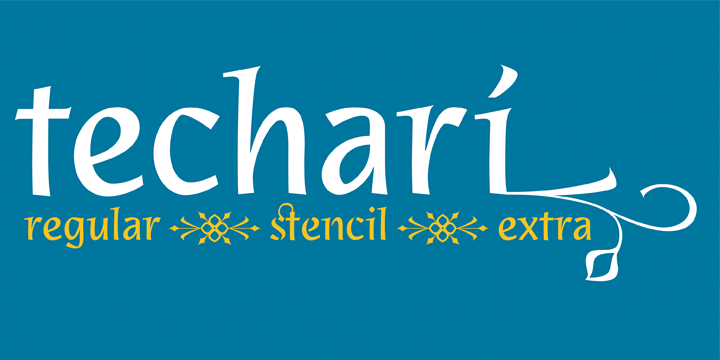
Techarí comes from a commission in which the brief consisted of the creation of a typeface family to be used for the design of the third disc of the band called Ojos de Brujo based in Barcelona. This disc was called Techarí, which means “free” in Caló, the language of the Spanish gypsies.
The starting point of the design was the music of this band, the meaning of the disc 's name, and three words given by the band as key concepts: ethnic, baroque and graffiti. Techarí is a mixture of lots of influences, which give it its unique personality. More…